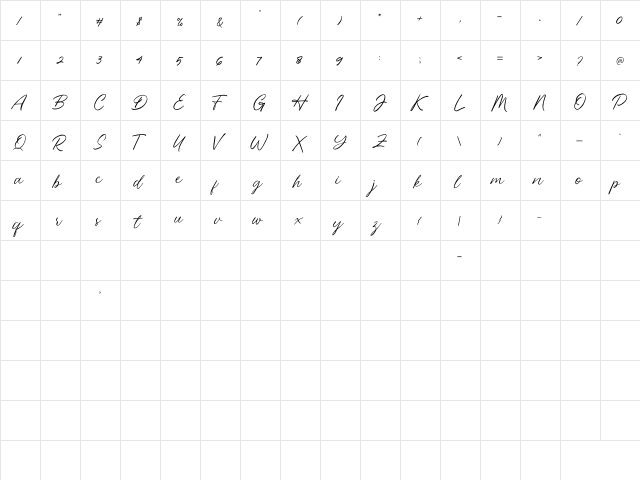
Britney Collection Regular
| Designer | Ade Santani |
Design Context for Britney Collection Typeface
Britney Collection is a composed and adaptable typeface that performs quietly and consistently across a wide range of design contexts.